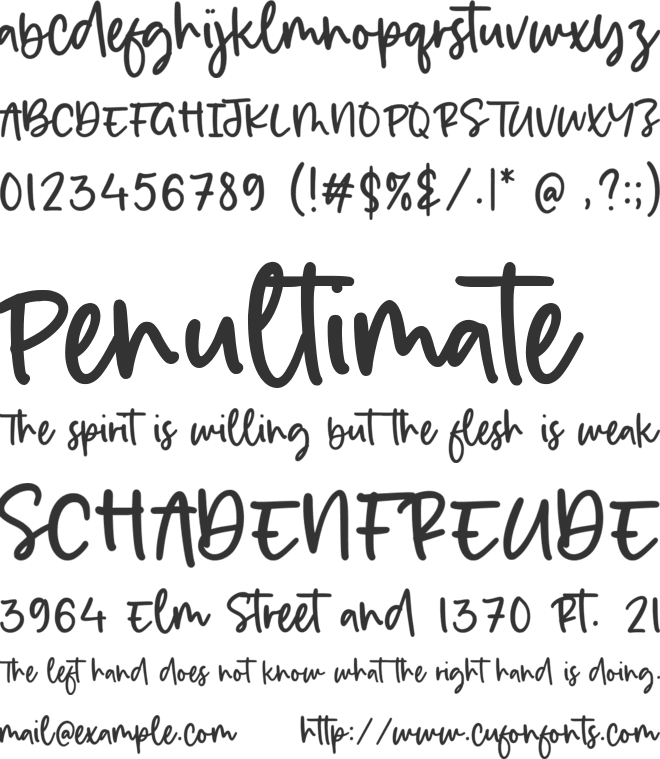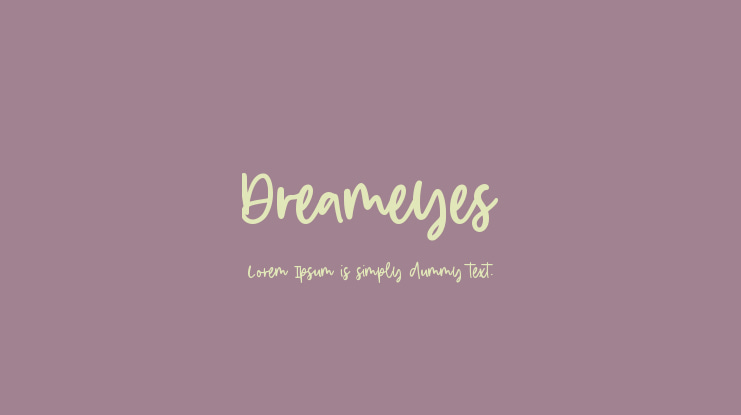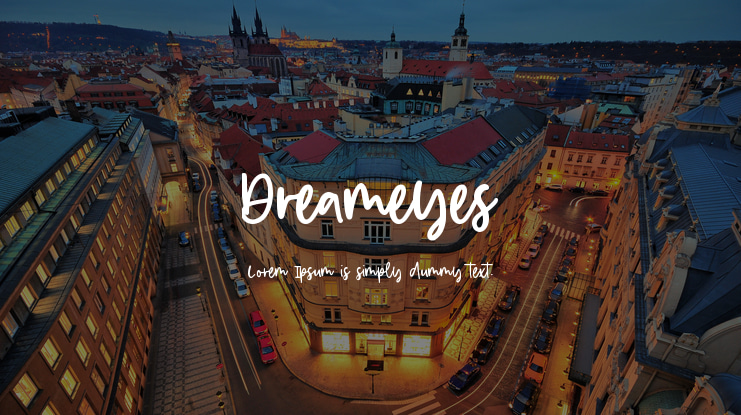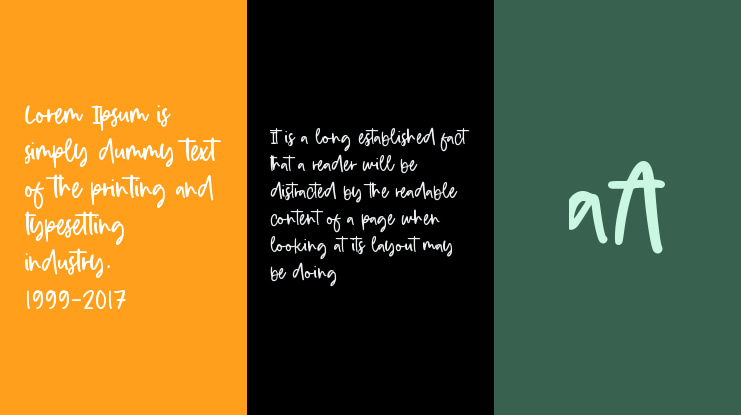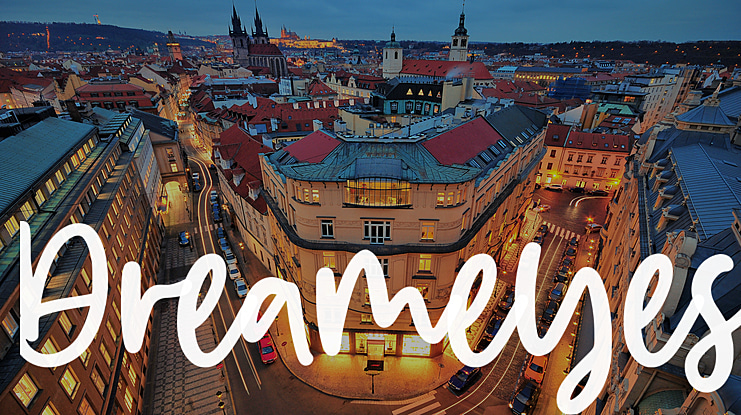
Dreameyes Font
Proudly Present, Dreameyes Font.
Dreameyes is a Lovely Modern Calligraphy Font.
Dreameyes is perfect for product packaging, branding project, megazine, social media, wedding, or just used to express words above the background.